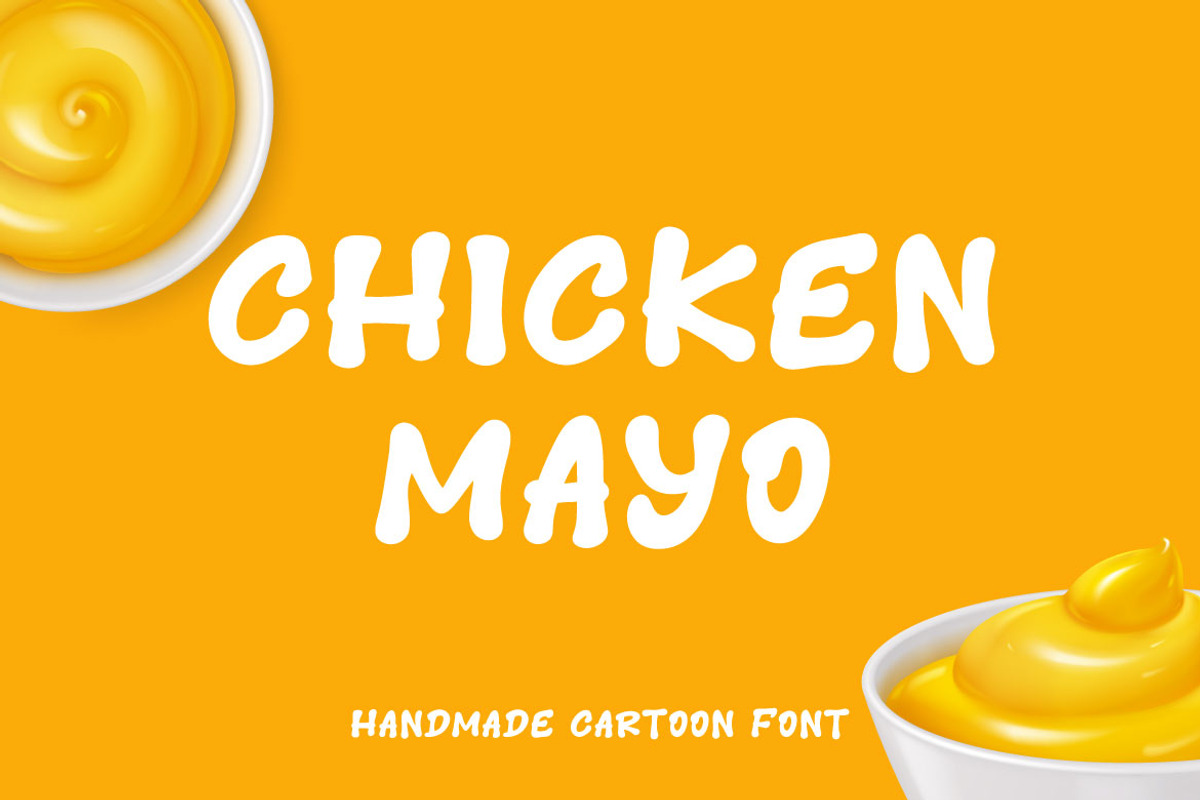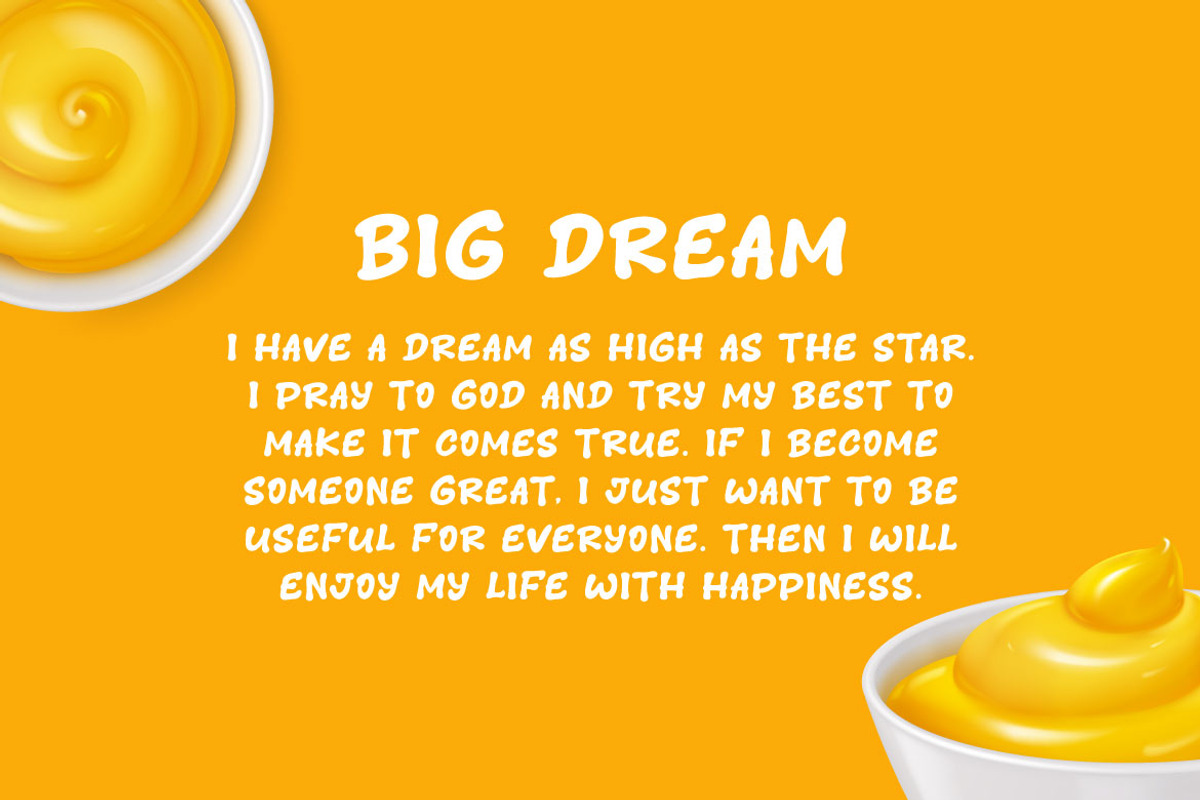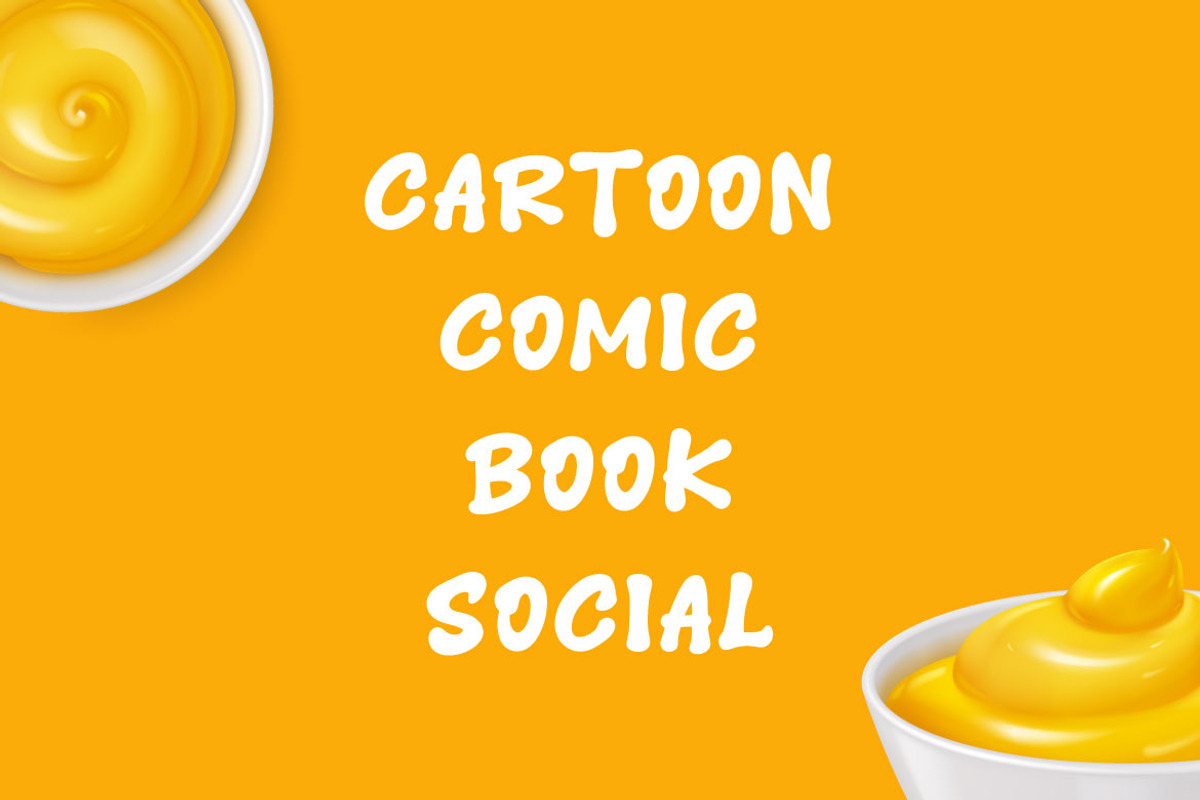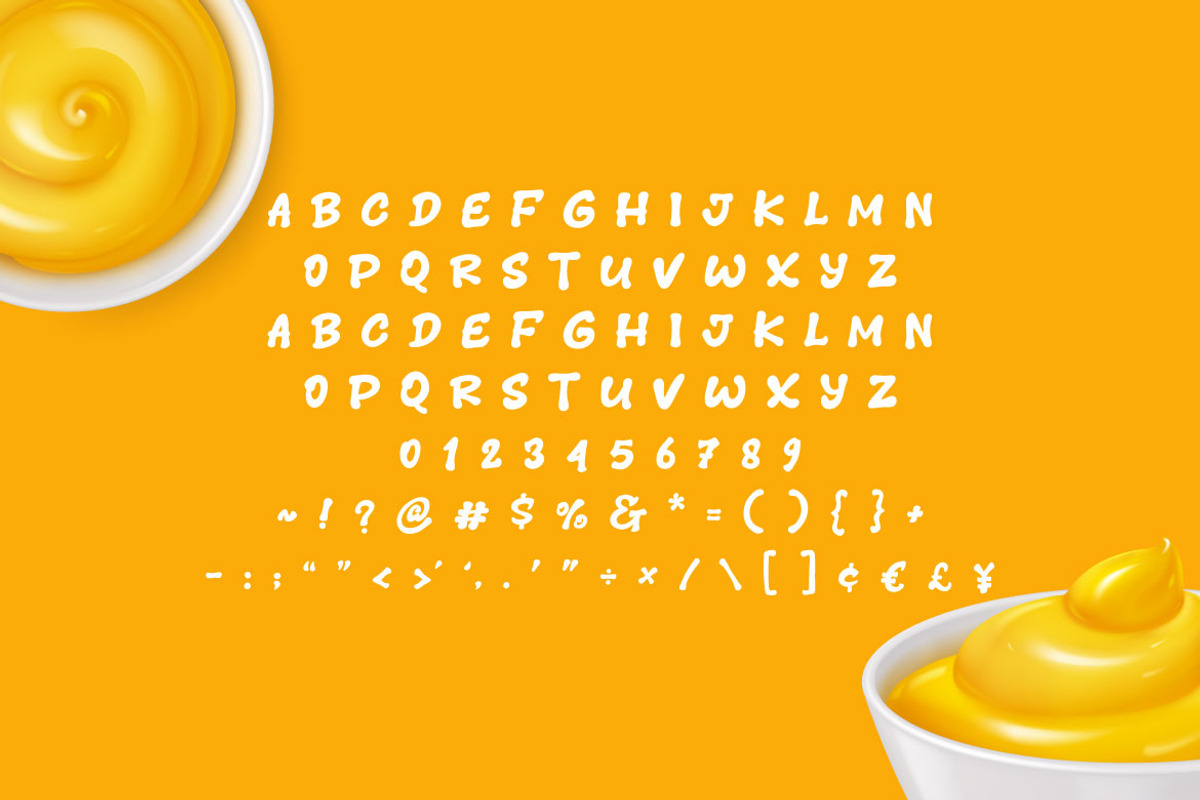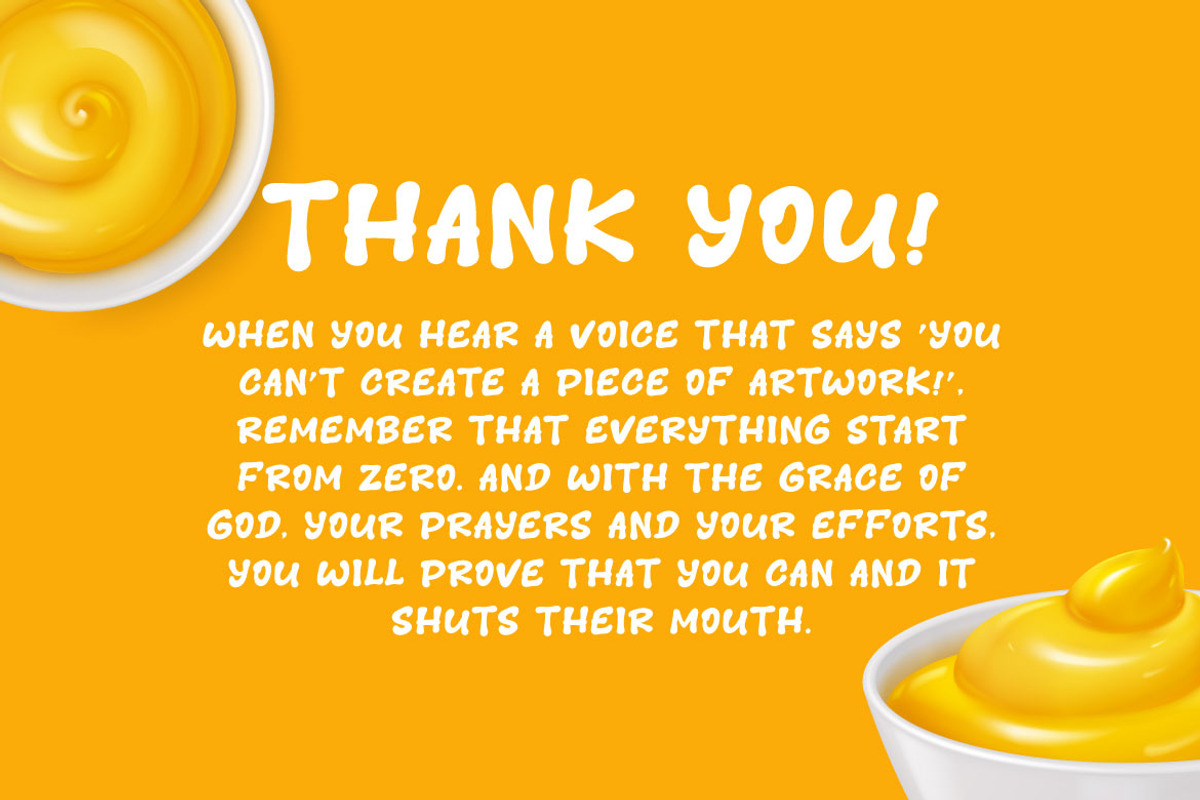
Chicken Mayo - Handmade Cartoon Font
Chicken Mayo - Handmade Cartoon Font is a playful and whimsical typeface that brings a sense of fun and lightheartedness to any design. Characterized by its bold and exaggerated strokes, this font features quirky shapes, reminiscent of the animated world. The letters are typically rounded and bubbly, adding a cheerful and approachable vibe.